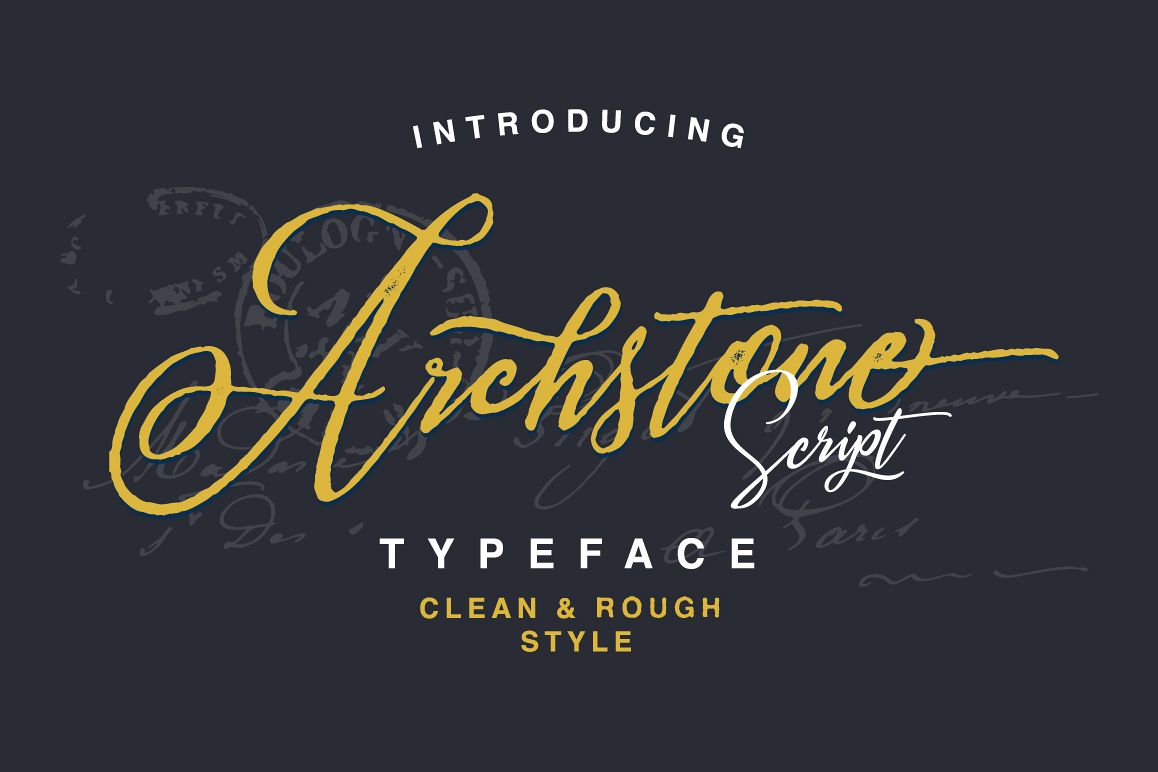
Archstone Typeface
?? --- Queentype Introducing : Archstone Script - 2 Style --- ??
Archstone Script is a beautiful handscript
Calligraphy Style give the natural looks. Alternate character contain
with Alternate and more. You can access all those alternate characters
Great for Apparel Brand, Logos, printed quotes, invitations, image
overlays, greeting cards, product packaging, text headers, any greeting
cards, book cover, Painting design style, or any design that needs
natural and personal touch & whatever else your imagination holds!
Mix and match the alternate characters to add an attractive message to
your design.